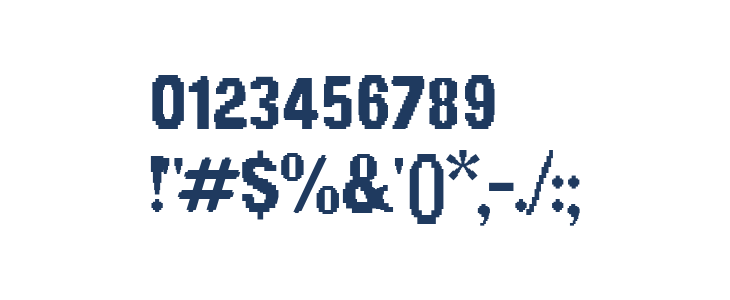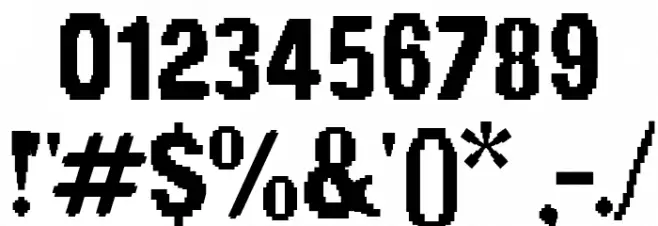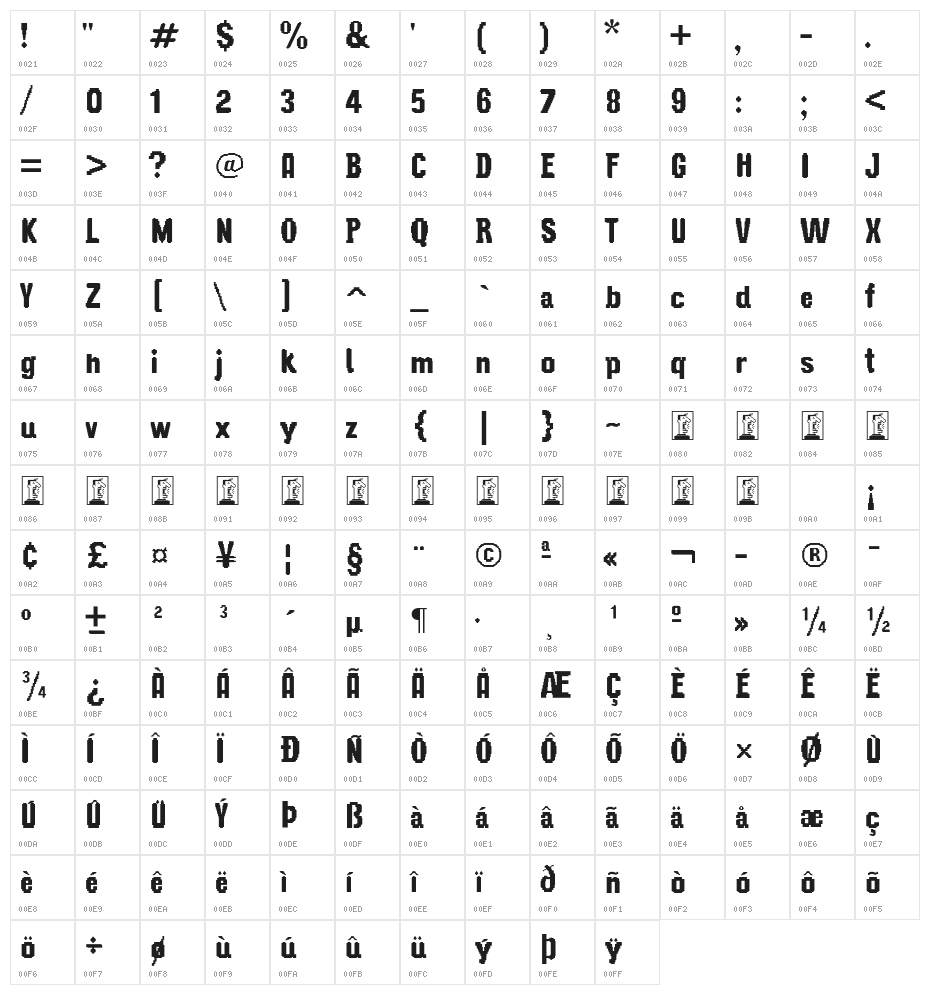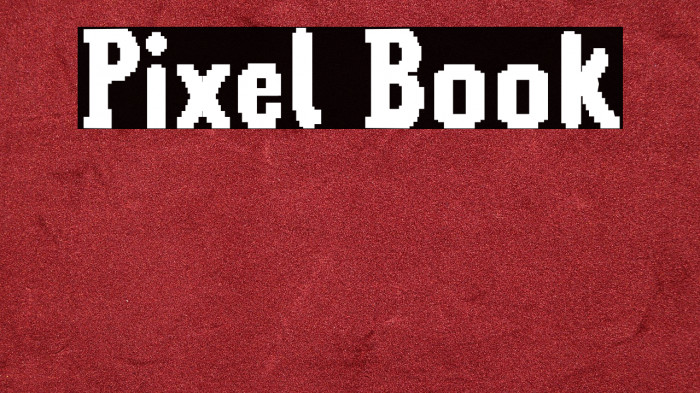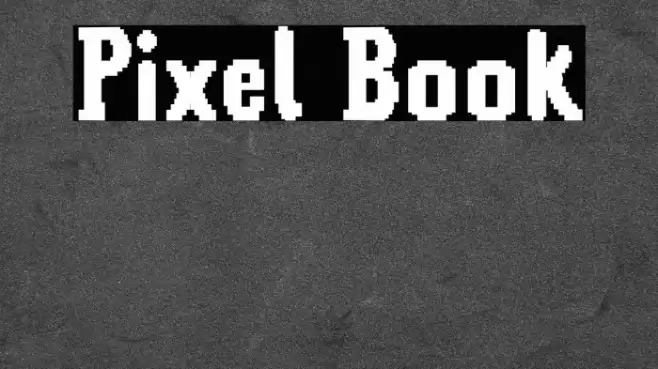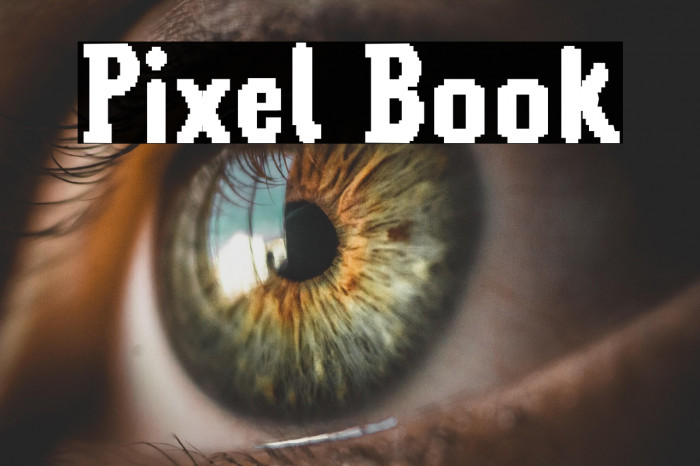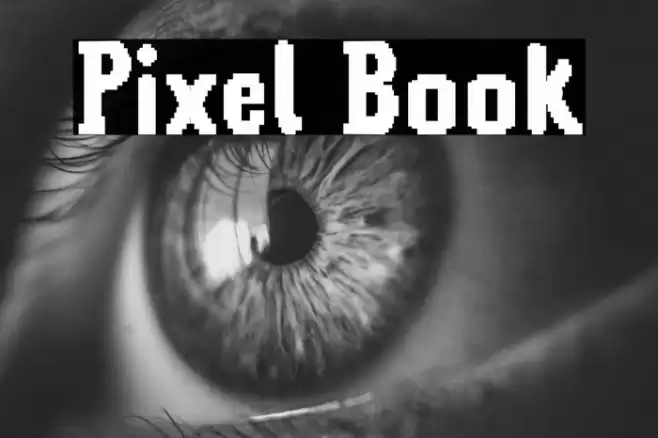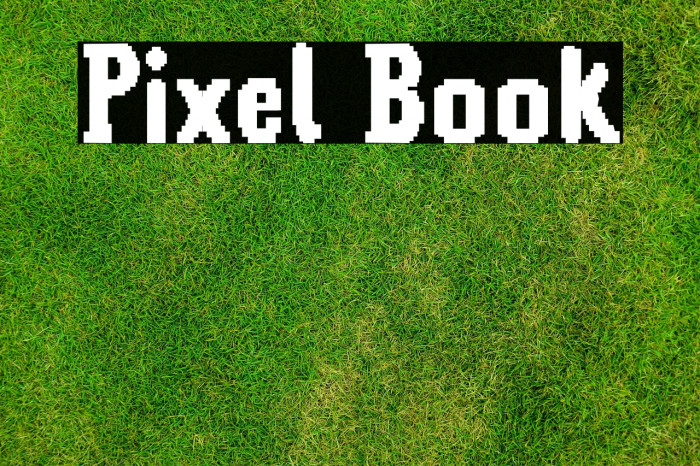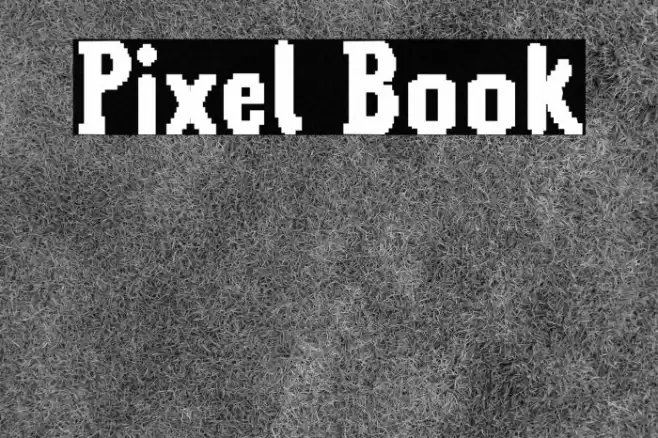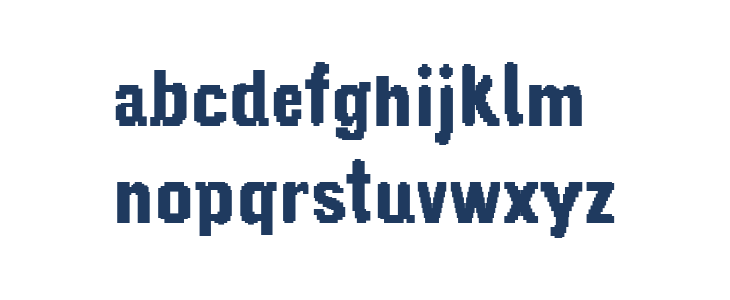
Pixel Book Font
Pixel Book Description
This font features a bold, pixelated design reminiscent of early digital displays and retro video games. The characters are constructed with a blocky, grid-like appearance, giving it a distinctly vintage digital aesthetic. Each letter and number is composed of sharp, angular edges, creating a uniform and cohesive look. The uppercase and lowercase letters maintain a consistent style, while the numerals and special characters complement the overall design. This font's nostalgic charm makes it ideal for projects that aim to evoke a sense of the early digital era.
| Use Case | Logos, Headlines, Digital Art |
| Proposed Projects | Ideal for retro-themed video games, digital art projects, and nostalgic branding materials. |